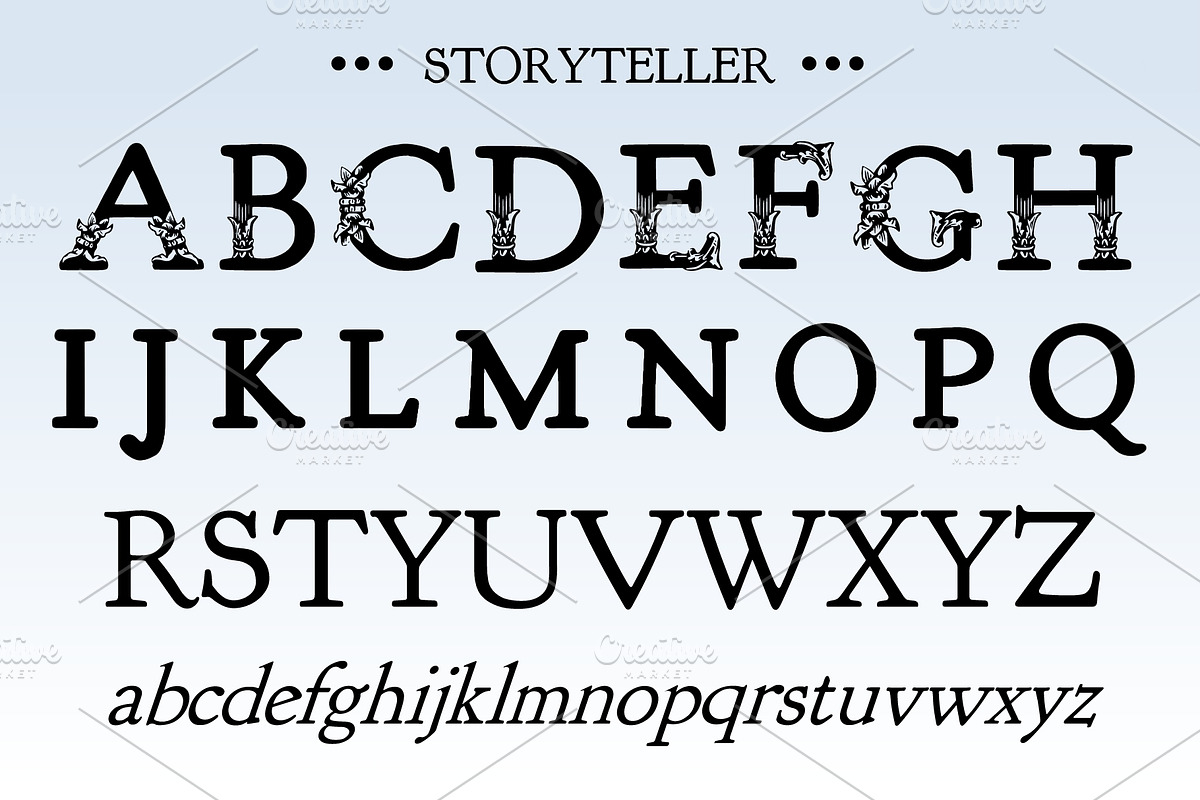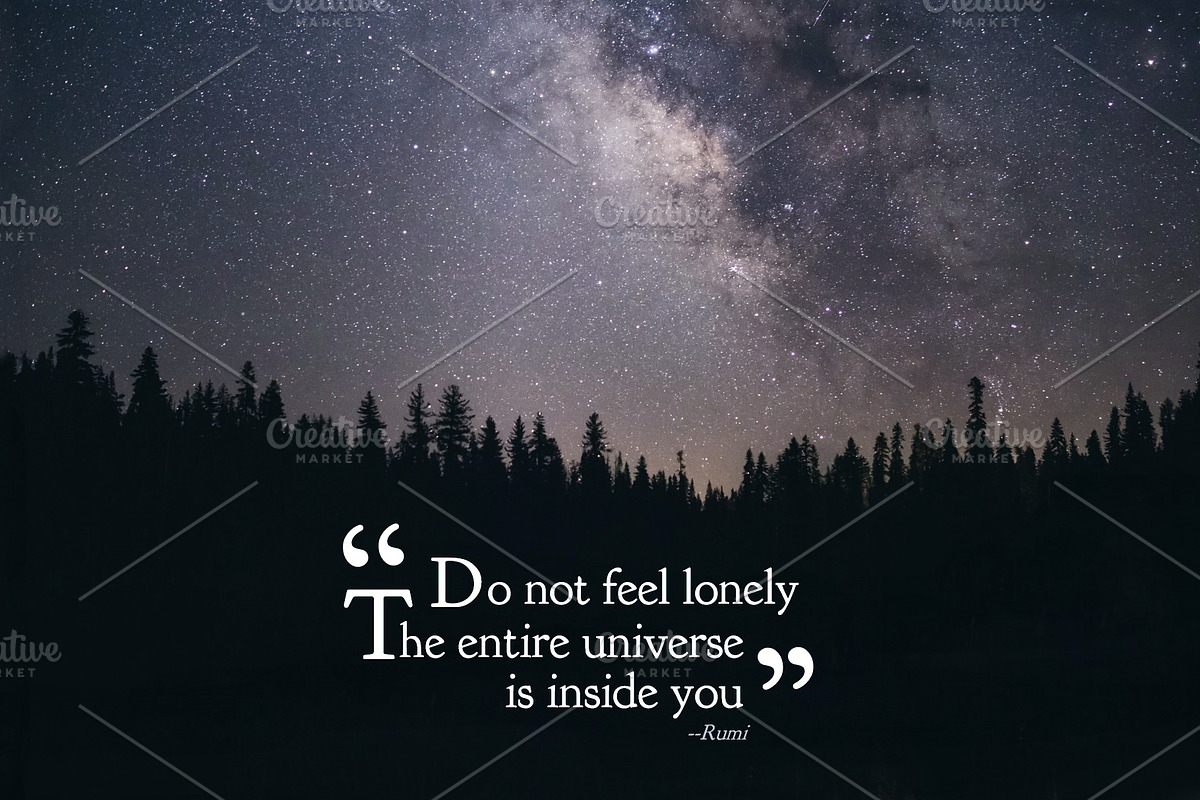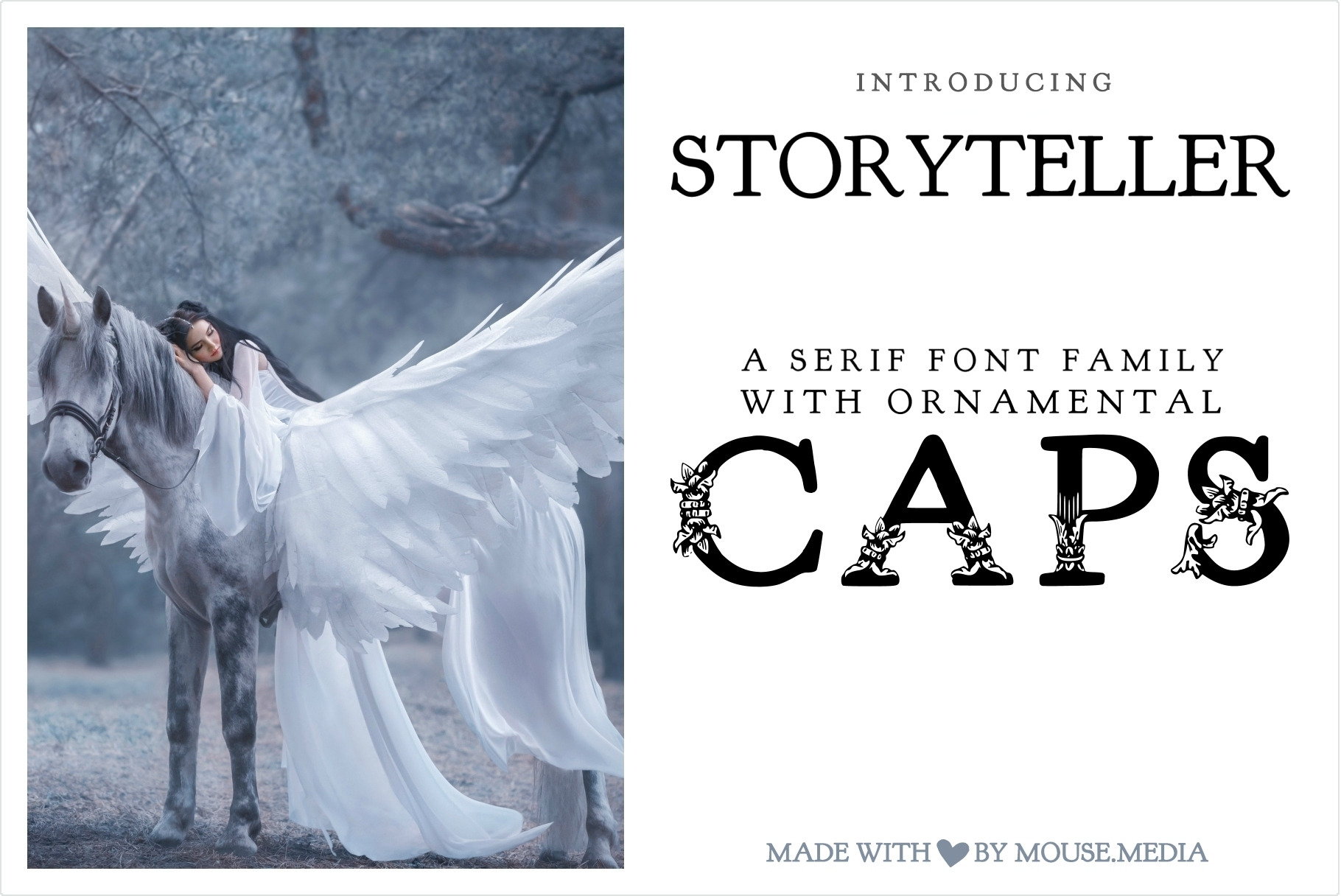
Storyteller Serif Font w Pretty Caps
Storyteller Serif Font with Pretty Ornamental Caps
I created Storyteller for a book template I'm working on. I wanted a serif font that was versatile, but also beautiful, with lovely ornamental numbers and caps. I discovered that the bold version has its own personality, ideal for labels and typography. The Storyteller Family is, hands down, the most versatile font family I've ever used or created. Grab a coffee and scroll through the showcase. I hope you love it.
P.S. Don't miss the bonus Renaissance font, shown in the last photo.